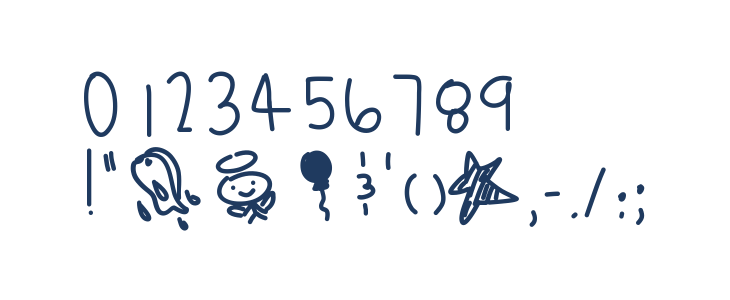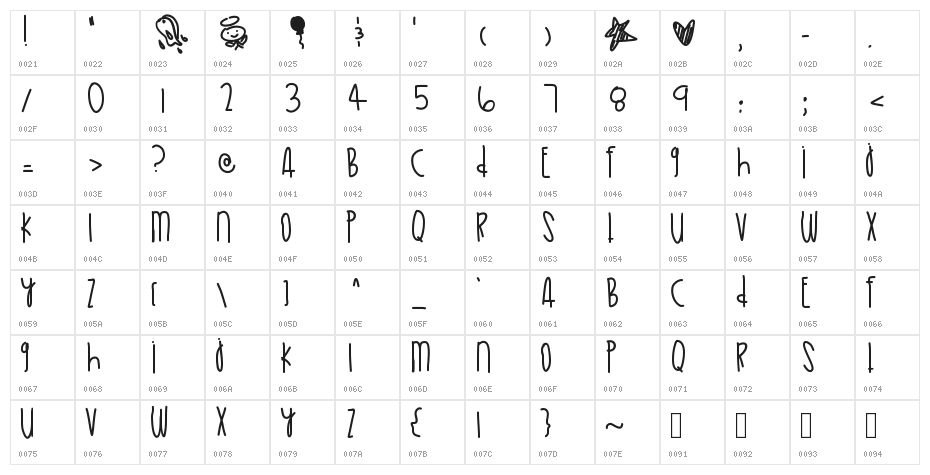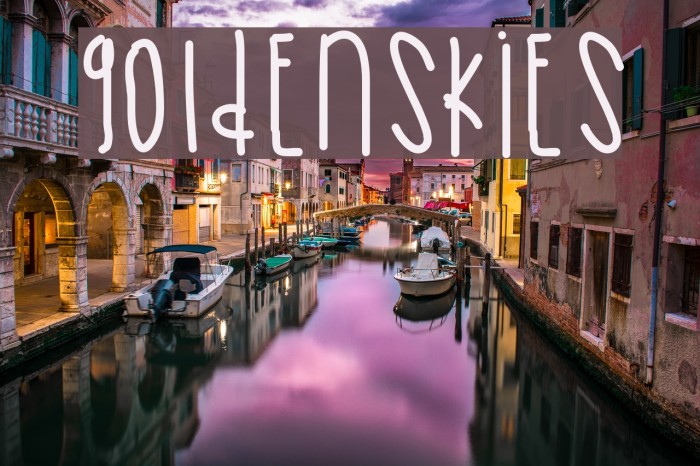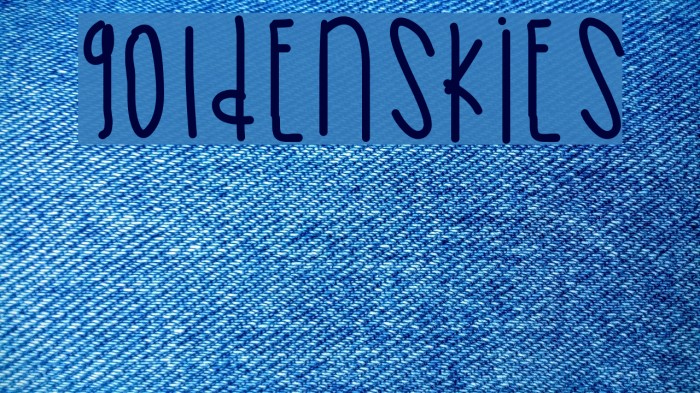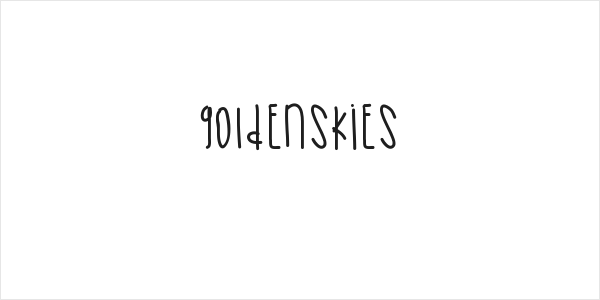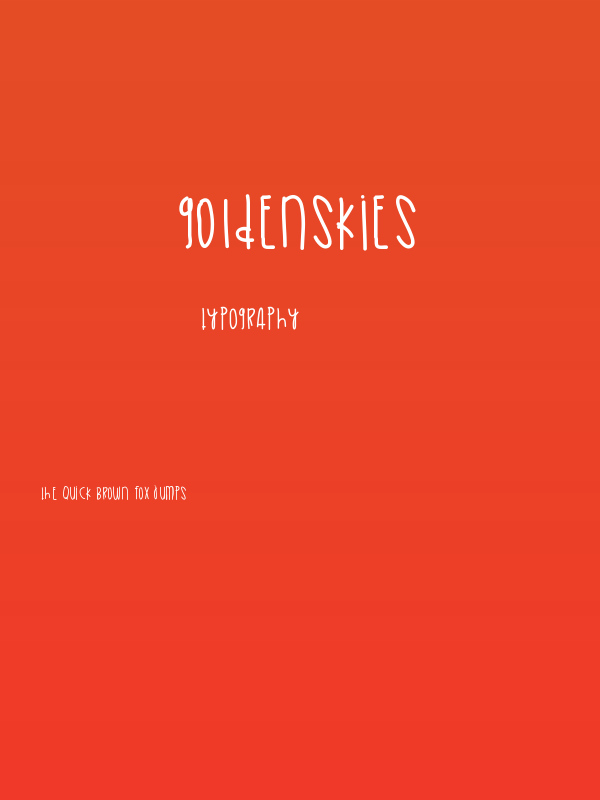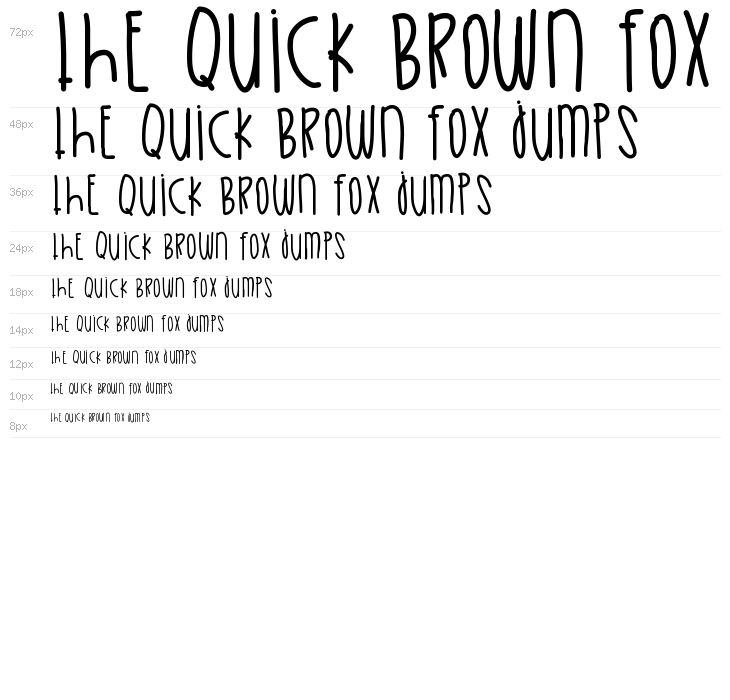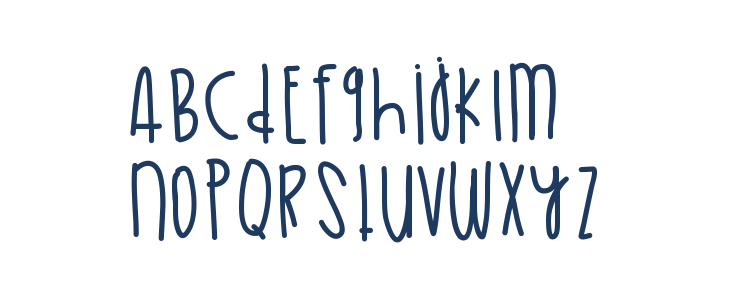
GoldenSkies Font
GoldenSkies Description
This playful and whimsical font features a handwritten style with a casual and friendly appearance. The characters are tall and slightly narrow, with a consistent stroke width that gives it a uniform look. The letters have a slight tilt, adding to the informal and approachable feel. The numbers and special characters maintain the same playful aesthetic, making it suitable for creative and fun projects. The overall design is clean and legible, with a touch of personality that stands out.
| Use Case | Headlines, Logos, Social media graphics |
| Proposed Projects | Ideal for children's books, greeting cards, playful branding, and social media graphics. |